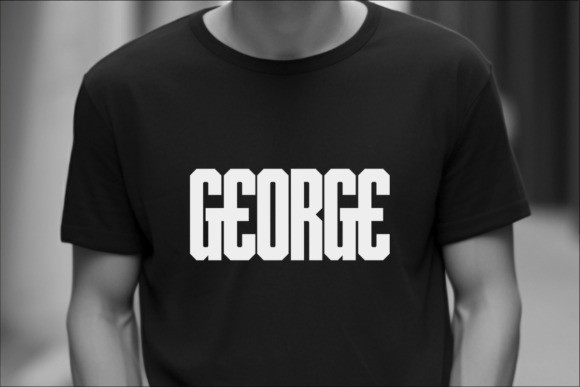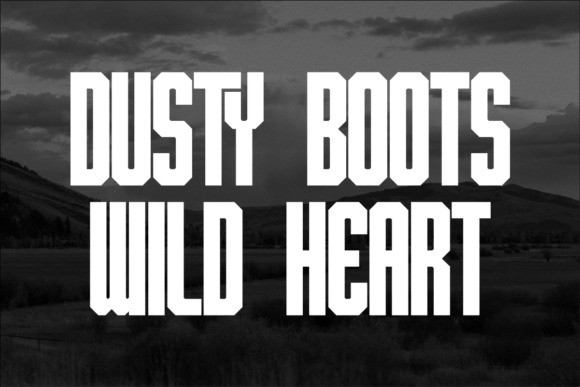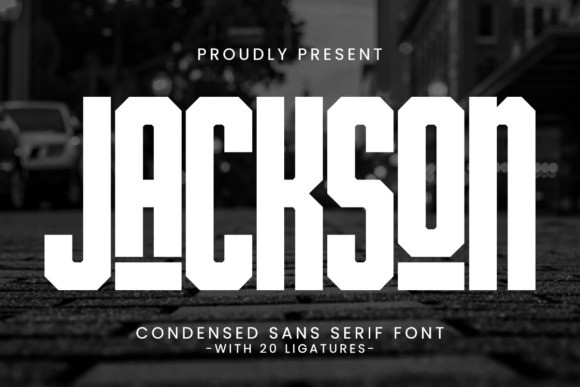
Jackson Font
Jackson Font is a bold, condensed sans-serif font with a strong industrial and geometric style. Its sharp corners and clean edges bring a modern urban vibe, making it perfect for sports branding, streetwear design, posters, album covers, logos, and bold headlines. Jackson also includes 20 unique ligatures that give extra versatility and creativity for standout typography projects.